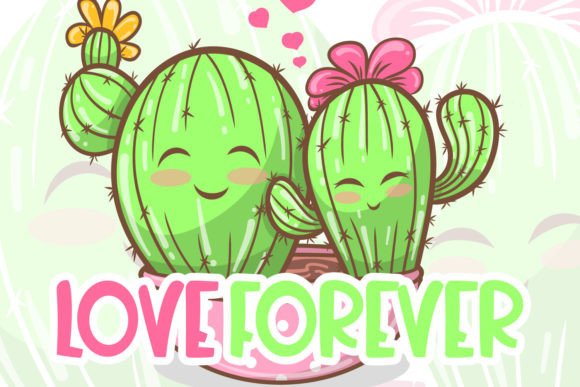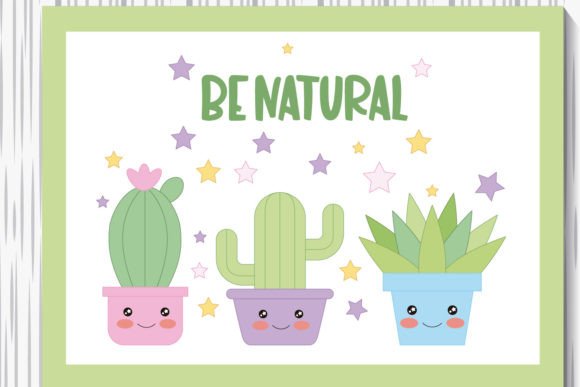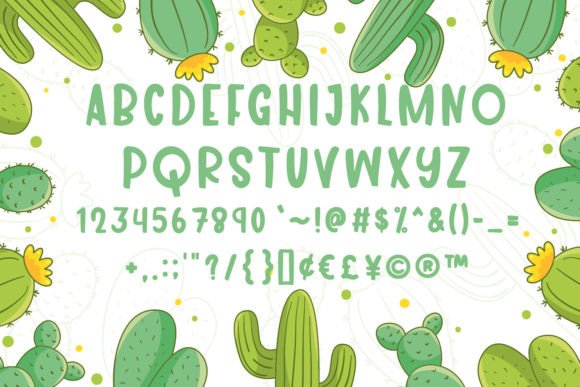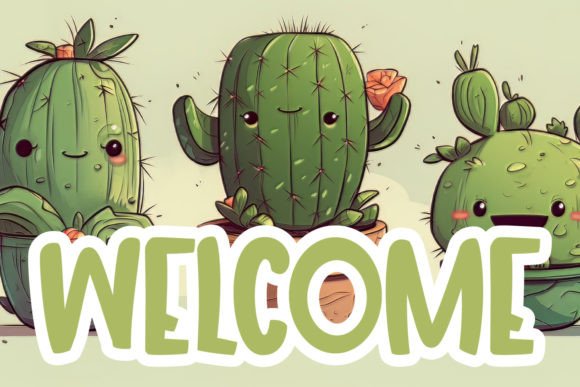
Cactus Paint Font: The Perfect Choice for Fun and Playful Designs
Are you looking for a font that embodies playfulness and authenticity? Look no further than Cactus Paint Font! This fun, jolly, and incredibly charming display font is perfect for any children’s activity or school project. In this article, we’ll dive into the features and benefits of Cactus Paint Font, and explore how it can add a touch of whimsy to your designs.
What is Cactus Paint Font?
Cactus Paint Font is a unique and eye-catching display font that is sure to capture the attention of your audience. Its playful and carefree design makes it perfect for use in children’s books, school projects, and other fun and creative endeavors. The font features bold, rounded letters with a hand-painted feel, giving it a charming and endearing quality that is hard to resist.
Key Features of Cactus Paint Font
- Playful Design: Cactus Paint Font features a playful and carefree design that is sure to bring a smile to your face. Its bold, rounded letters are perfect for use in children’s books, school projects, and other fun and creative endeavors.
- Hand-Painted Feel: The font has a hand-painted feel, giving it a charming and endearing quality that is hard to resist. The imperfect lines and curves add to the font’s whimsical and playful nature.
- Display Font: Cactus Paint Font is a display font, making it perfect for use in headlines, titles, and other prominent text elements. Its bold and eye-catching design ensures that it will stand out on any design.
- Multilingual Support: Cactus Paint Font supports multiple languages, making it a great choice for designers and crafters who work with international clients or want to create designs that can be used globally.
Benefits of Using Cactus Paint Font
So why choose Cactus Paint Font for your next design project? Here are just a few benefits of using this fun and playful font:
- Adds a Touch of Whimsy: Cactus Paint Font adds a touch of whimsy and playfulness to any design. Its bold and eye-catching design ensures that your text will stand out and grab the attention of your audience.
- Perfect for Children’s Designs: The font’s playful and carefree design makes it perfect for use in children’s books, school projects, and other designs aimed at kids.
- Easy to Read: Despite its playful design, Cactus Paint Font is easy to read, even in larger blocks of text. This makes it a great choice for use in titles, headings, and other prominent text elements.
- Customizable: Cactus Paint Font can be customized to fit your design needs. You can adjust the font size, color, and style to create a unique look that suits your brand or design.
How to Use Cactus Paint Font in Your Designs
Using Cactus Paint Font in your designs is easy! Here are a few tips to get you started:
- Pair with Other Fonts: Cactus Paint Font pairs well with other fonts, such as sans-serif fonts like Arial or Helvetica. Try pairing it with a clean and simple font to create a fun and playful contrast.
- Use in Headlines and Titles: Cactus Paint Font is perfect for use in headlines and titles. Its bold and eye-catching design ensures that your text will stand out and grab the attention of your audience.
- Add Color and Texture: Add color and texture to your design by using Cactus Paint Font in combination with other design elements, such as images, shapes, and patterns.
Cactus Paint Font is a fun, jolly, and incredibly charming display font that is perfect for any children’s activity or school project. Its playful and carefree design makes it a great choice for designers and crafters who want to add a touch of whimsy to their designs. With its bold and eye-catching design, hand-painted feel, and multilingual support, Cactus Paint Font is a versatile font that can be used in a variety of design projects. So why not give it a try and see how it can add a touch of playfulness to your next design?